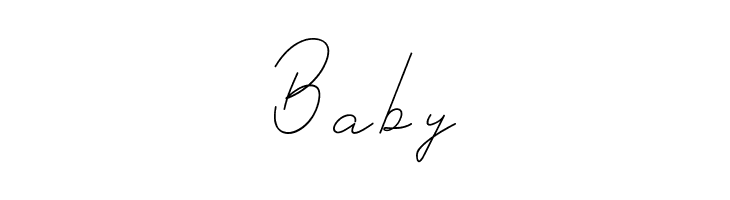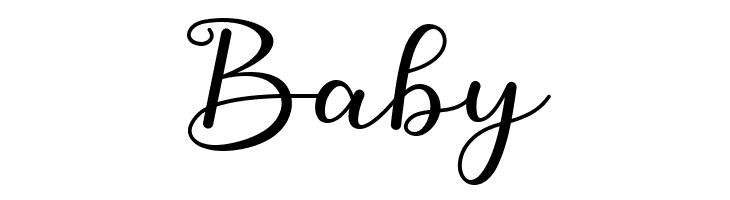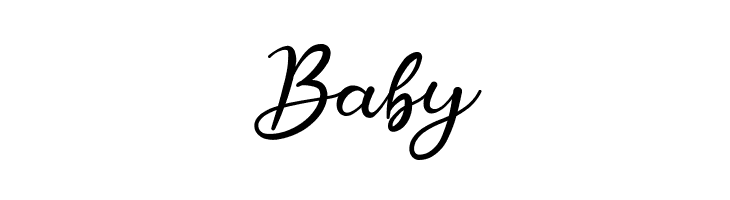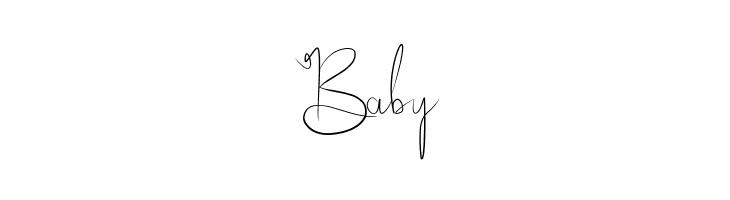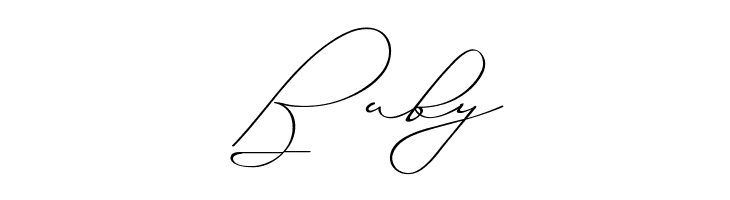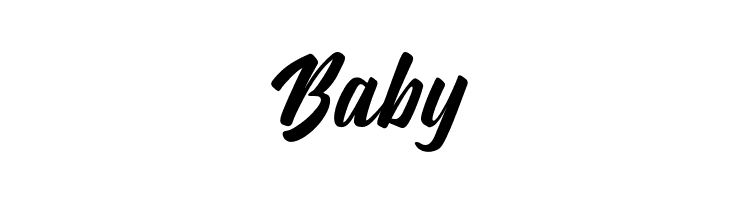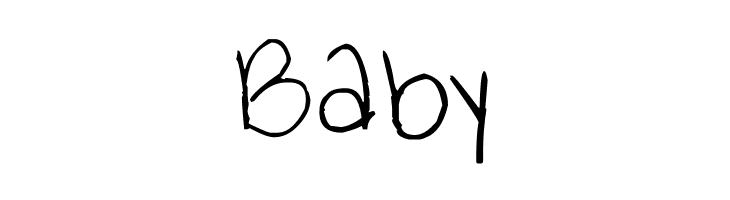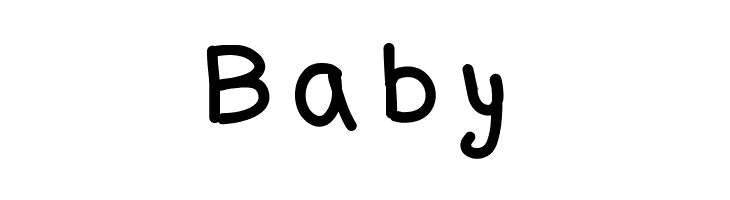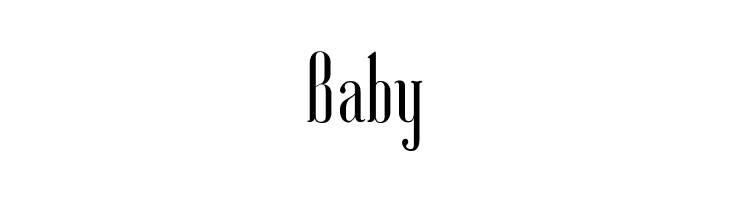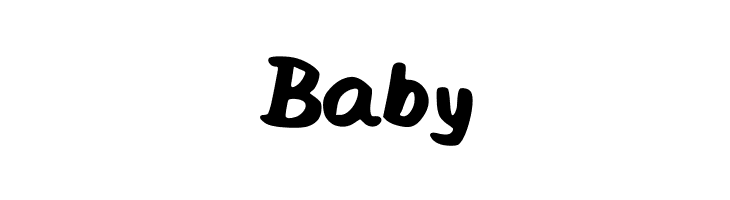
A playful, casual handwritten font with irregular strokes and an organic flow.
A lively, handwritten font with fluid strokes and a playful style.
A bold, flowing script font with elegant, connected characters.
A delicate, flowing script font with elegant cursive letterforms.
An elegant and flowing script font with graceful curves and a classic calligraphic influence.
A playful and whimsical script font with elegant loops and curls.
A tall, narrow serif font with high contrast and elegant, decorative elements.
An elegant, high-contrast font with tall, narrow characters and refined details.
A cursive script font with elegant, flowing strokes and interconnected letters.
A playful, handwritten font with rounded, consistent strokes and a casual feel.
An elegant, flowing script font with delicate, intricate letterforms.
A sophisticated script font with flowing, interconnected strokes and elegant curves.
A delicate, handwritten font with thin, flowing lines and a whimsical touch.
An elegant, decorative font with intricate swirls and flourishes.
Elegant swashes with smooth curves for decorative use.
A bold, brush-style font with expressive, hand-painted strokes.
A modern, geometric outline font with uniform line thickness and high legibility.
A bold, playful handwritten font with rounded, irregular characters.
A bold, modern sans-serif font with thick, uniform strokes.
A bold, italicized sans-serif font with a strong, modern presence.
A bold, modern sans-serif font with clean lines and a robust structure.
A bold, modern typeface with thick strokes and a slightly condensed style.
A bold, italic sans-serif font with a dynamic and modern style.
A modern, extra light sans-serif font with low contrast and excellent readability.